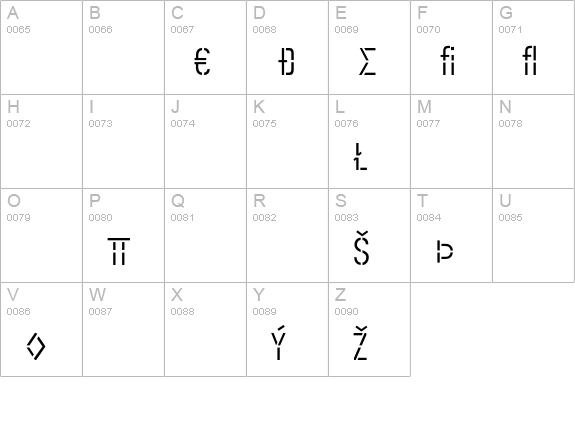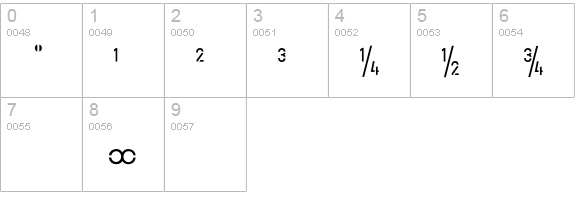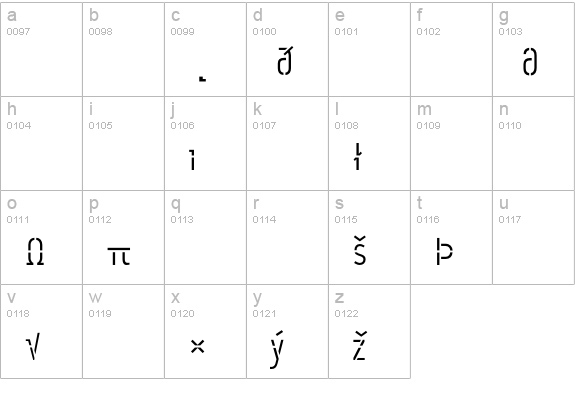
Offline-LightExpert font is a stylish and modern typeface that exudes sophistication and elegance. Its sleek lines and clean design make it perfect for a wide range of design projects, from branding to editorial layouts. This font is versatile and easy to read, making it a great choice for both digital and print applications. What sets Offline-LightExpert font apart is its unique blend of minimalism and sophistication, making it a standout choice for designers looking to make a statement. The light weight of the font gives it a delicate and refined appearance, while the expertly crafted letterforms add a touch of elegance to any design. Best of all, Offline-LightExpert font is completely free to download at FontsMarket.com. This means you can elevate your design projects without breaking the bank. Whether you're working on a personal project or a client's branding, this font is sure to impress with its timeless appeal and modern aesthetic. Download Offline-LightExpert font today and add a touch of sophistication to your design projects.